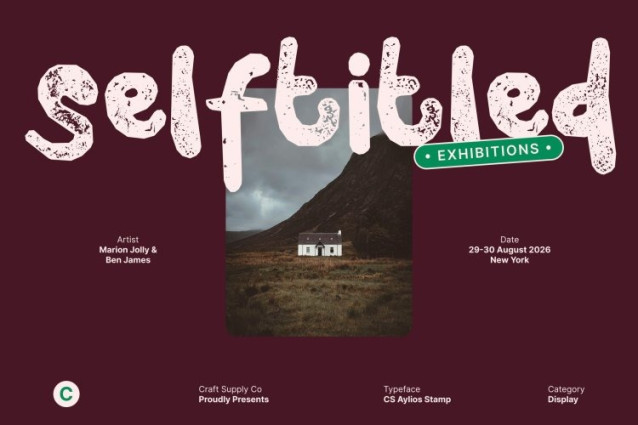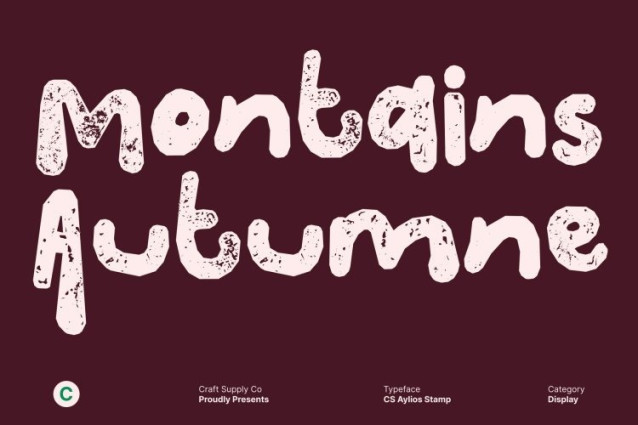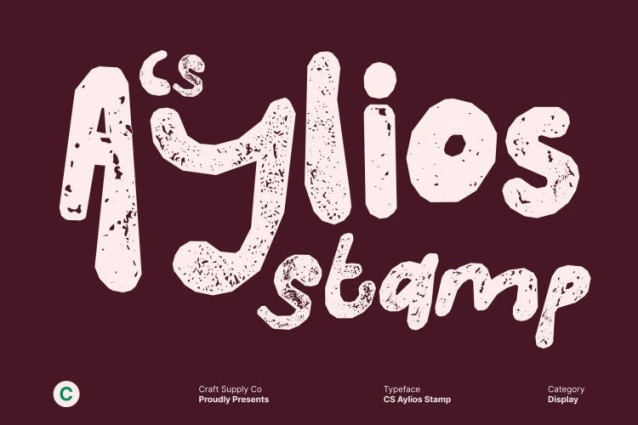
CS Aylios Stamp Font
CS Aylios Stamp Font This is a hand-drawn display font bursting with funky energy and cheerful expression. Designed with bold curves and lively proportions, each letter feels animated and joyful capturing the spirit of groovy creativity. Its playful construction brings rhythm and movement to typography, making every word feel alive and full of charm.
Sweet Cream–Inspired Curves with Decorative Flow
Inspired by the smooth, swirling motion of sweet cream, features decorative curves that feel soft, fluid, and indulgent. These creamy shapes create a delightful balance between boldness and softness, giving the font a unique visual flavor that feels both funky and friendly. The flowing forms add warmth and personality, making designs instantly eye-catching.
Hand-Drawn Expression with Stamped Texture
The stamped style introduces a subtle roughness and uneven texture that enhances the handcrafted feel. This organic imperfection adds depth and authenticity, reinforcing the font’s playful and artistic character. The result is a display font that feels expressive, tactile, and full of creative soul.
Perfect for Fun Branding and Youthful Identities
This font shines in projects that embrace joy, color, and originality. It’s ideal for playful branding, logos, product packaging, and visual identities that aim to feel youthful and approachable. Perfect for confectionery brands, cafés, lifestyle products, kids’ designs, and creative small businesses looking to stand out with personality.